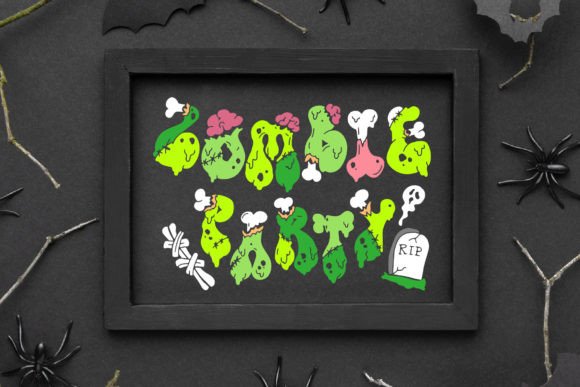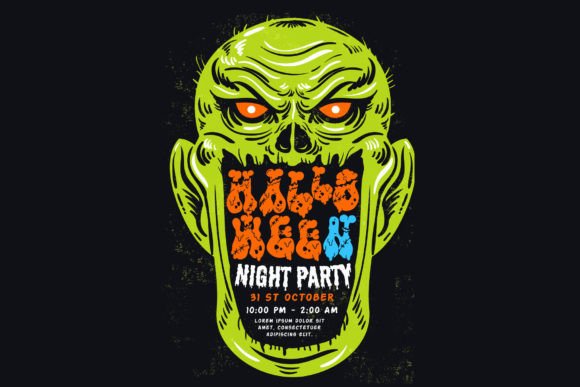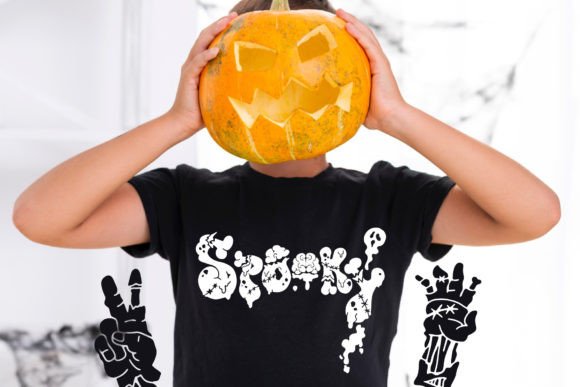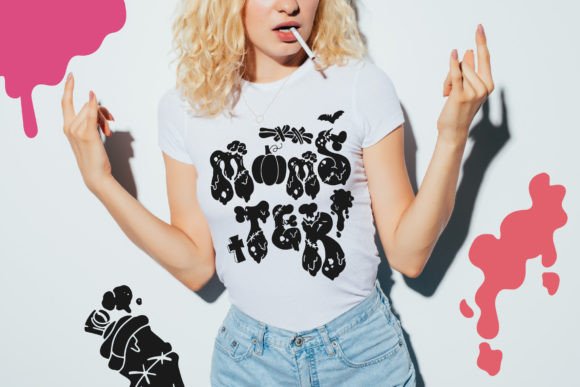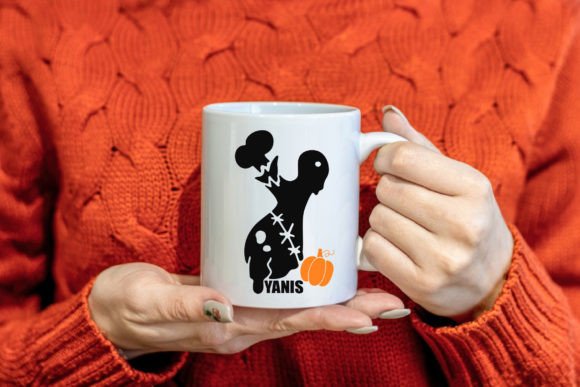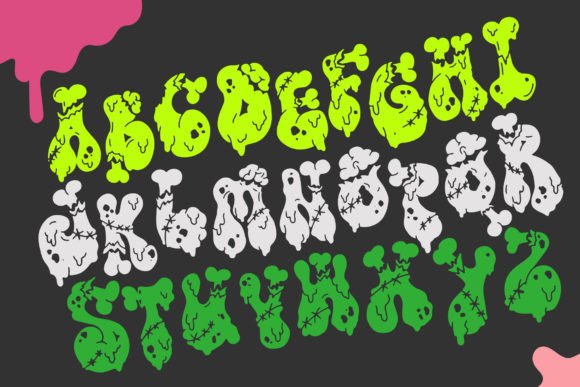
Finding the Perfect Font for Your Spooky Projects
As the leaves begin to change and the air grows crisp, I know it’s that time of year again – Halloween is just around the corner. The perfect opportunity to unleash your creativity and bring a spooky touch to your decorations, invitations, or even social media posts. I was rummaging through my font collection, searching for the perfect addition to my haunted house design, when I stumbled upon the Flesh and Bone Font.
This eerie yet charming font is a game-changer for designers looking to add a dramatic touch to their Halloween projects. The Flesh and Bone Font is perfect for creating invitations, posters, or even digital graphics that scream “spooky season”. With its unique blend of macabre and whimsy, this font is sure to elevate your designs and leave a lasting impression on your audience.
Whether you’re a seasoned designer or a DIY enthusiast, the Flesh and Bone Font is a valuable addition to any font collection, offering endless possibilities for creative expression and design experimentation.
Flesh and Bone Font Key Features
- Unique Characteristics: The font features a distressed, hand-drawn aesthetic with a mix of bold and delicate lines, giving it a unique and eye-catching appearance.
Flesh and Bone Font Review
I recently had the chance to work with the Flesh and Bone Font, and I must say it’s an interesting addition to any design project. Here’s my honest review:
- Unique aesthetic: Flesh and Bone Font has a distinctive, hand-drawn look that sets it apart from more common fonts.
- Good for creative projects: The font’s quirky nature makes it perfect for projects that require a touch of whimsy or personality.
- Large character set: The font includes a wide range of characters, making it suitable for use in various languages and contexts.
- Lack of polish: Some characters may appear rough or unfinished, which can detract from the overall design.
- Not suitable for body text: The font’s unique style may be distracting or difficult to read in large blocks of text.
- May not be suitable for corporate branding: The font’s unconventional look may not be suitable for professional or corporate contexts.
Overall, I think the Flesh and Bone Font is a great choice for creative projects or projects that require a unique touch. However, it may not be the best fit for every design project.
The Flesh and Bone Font is ideal for:
- Creating a unique and eye-catching visual identity.
- Designing invitations, menus, and other event materials.
- Adding a touch of sophistication to presentations and documents.